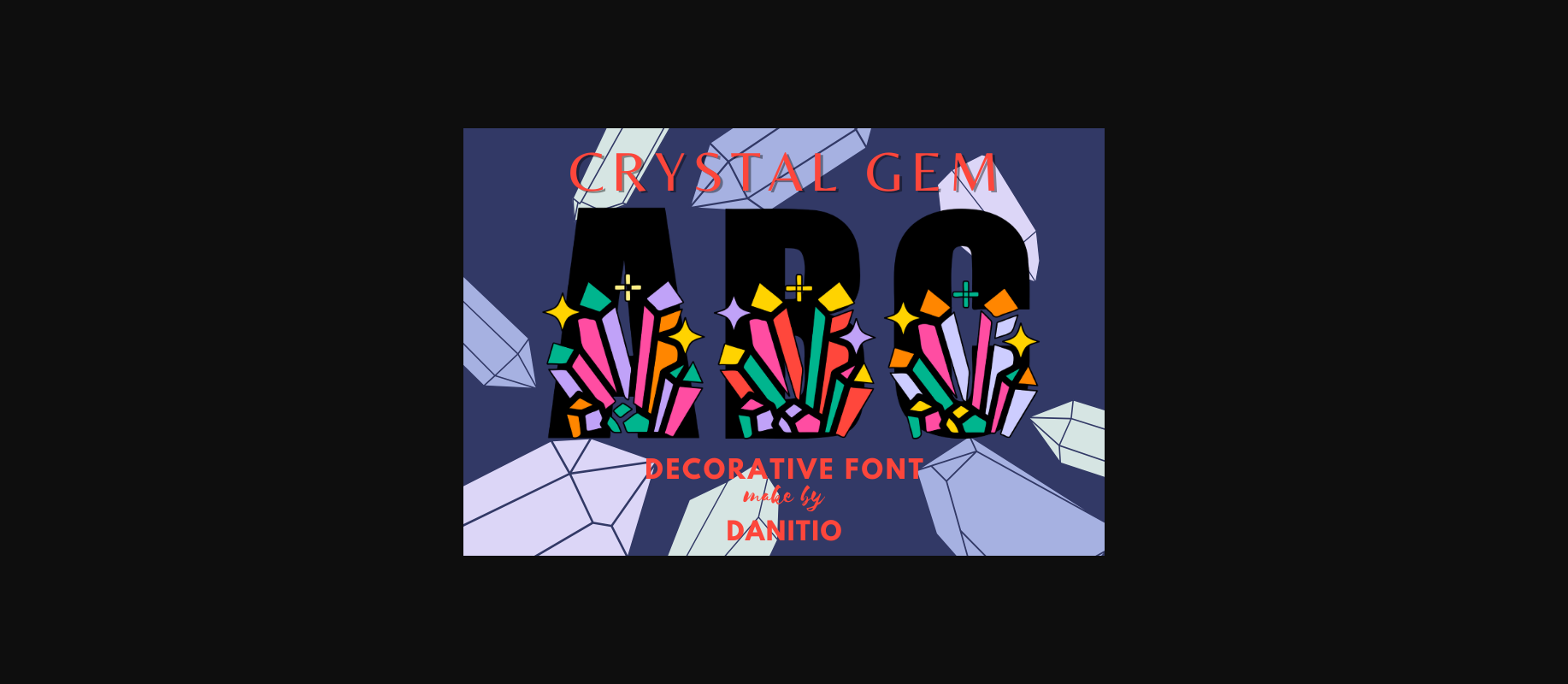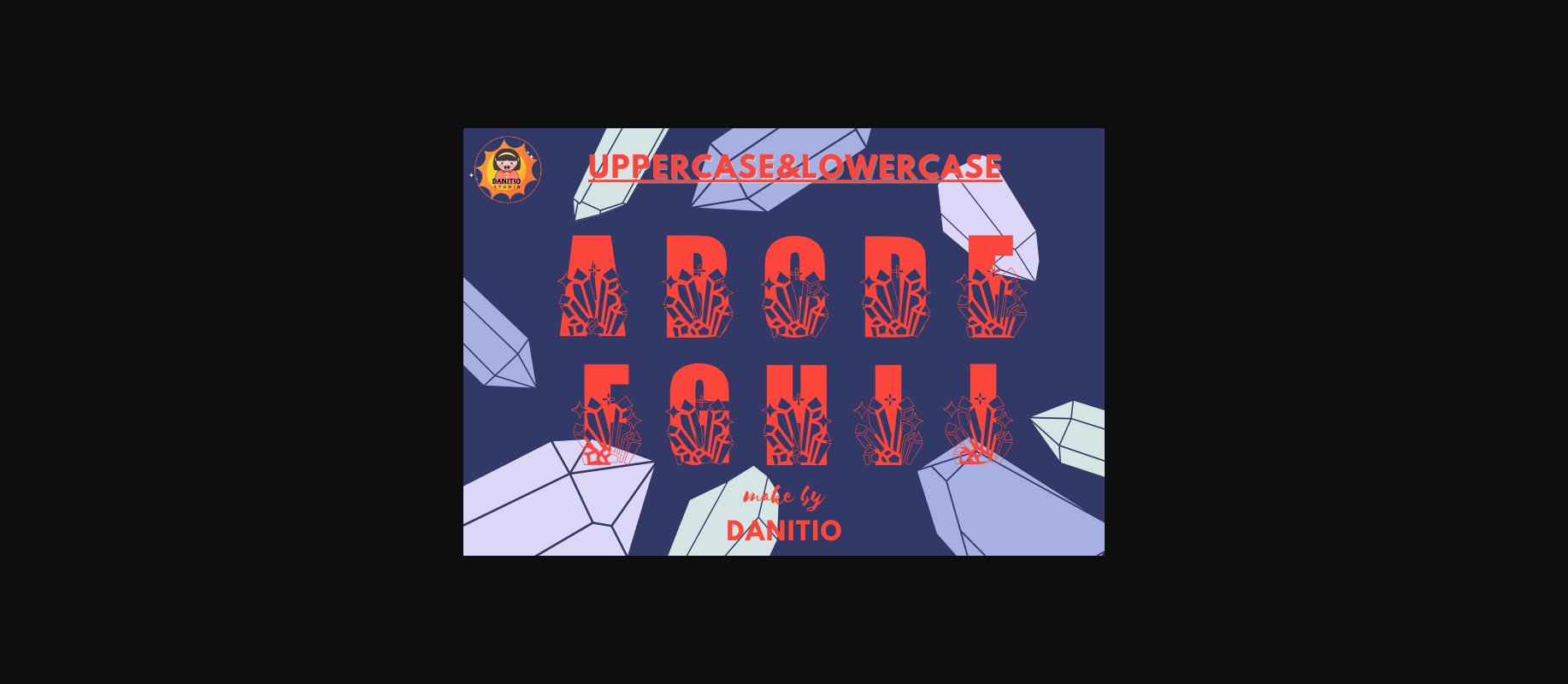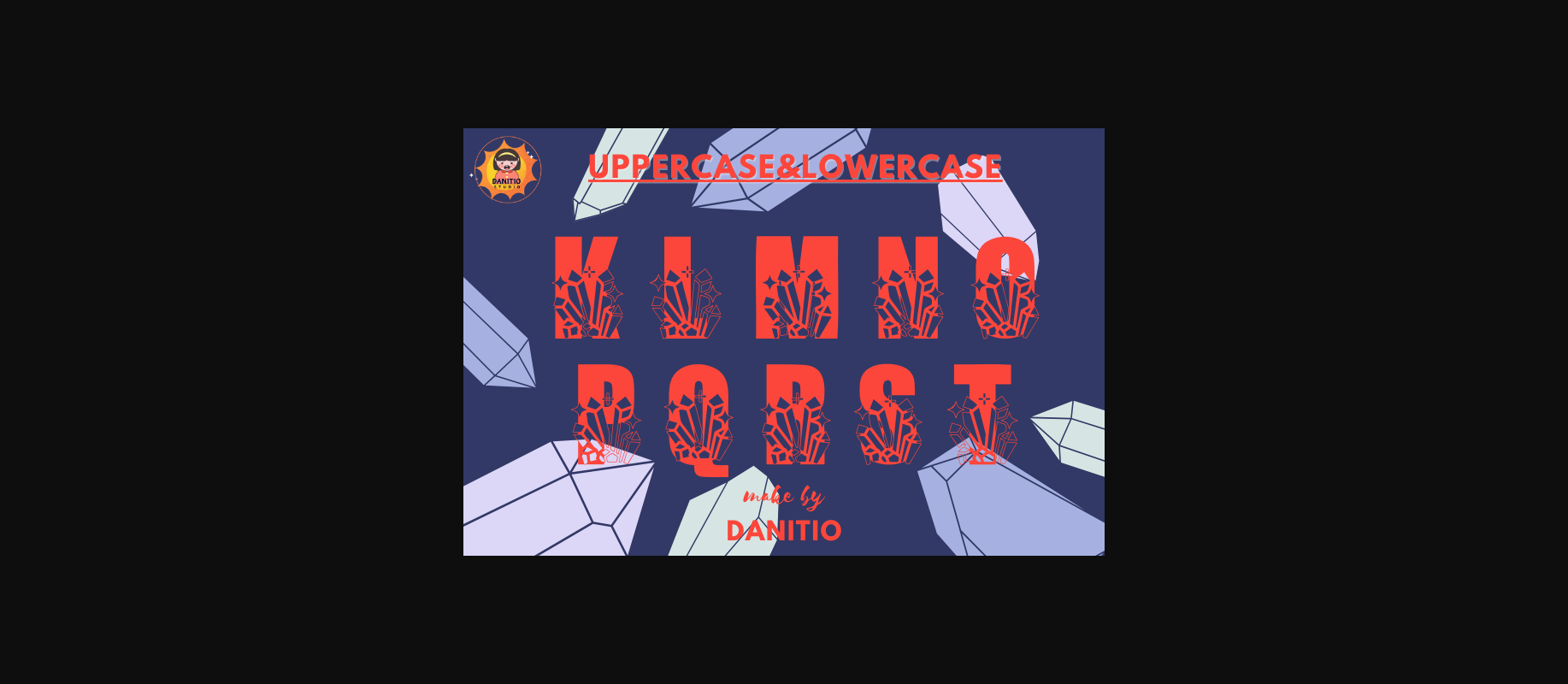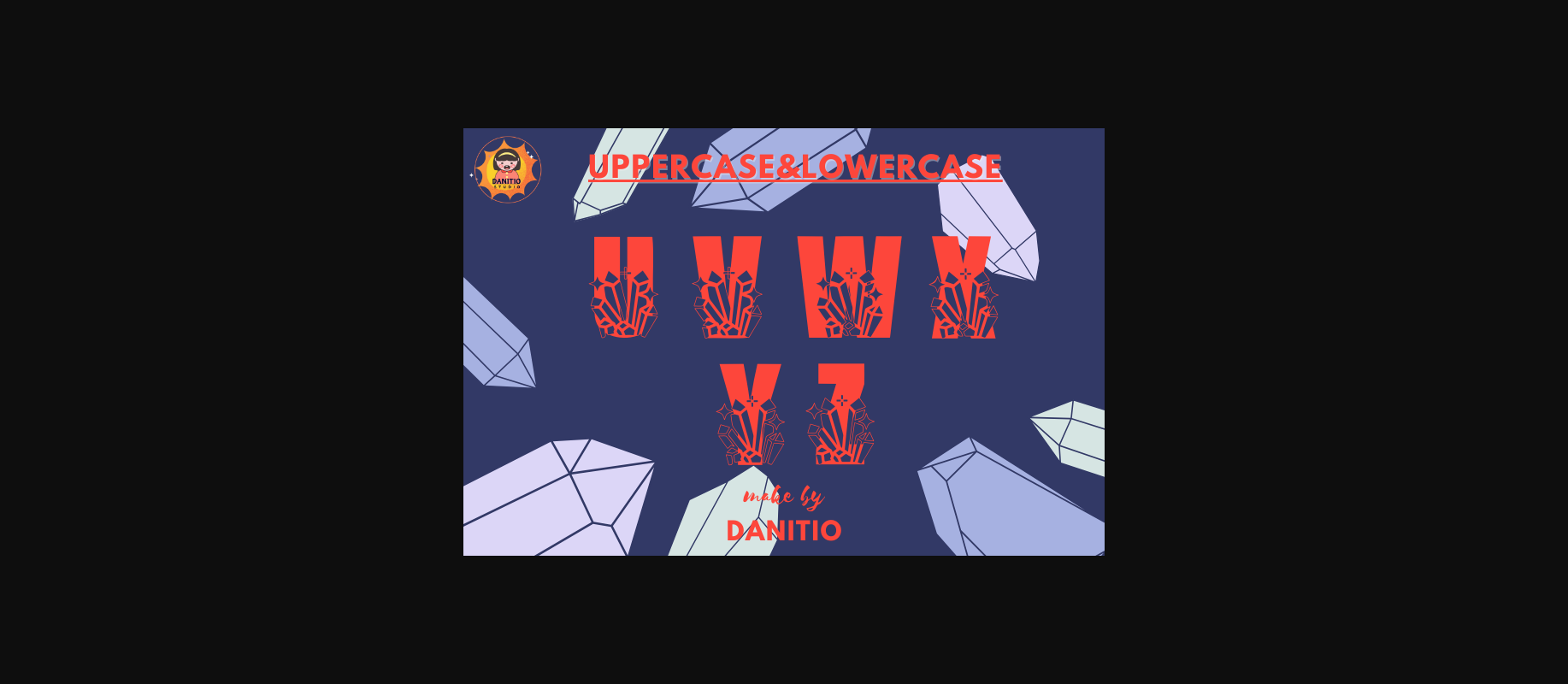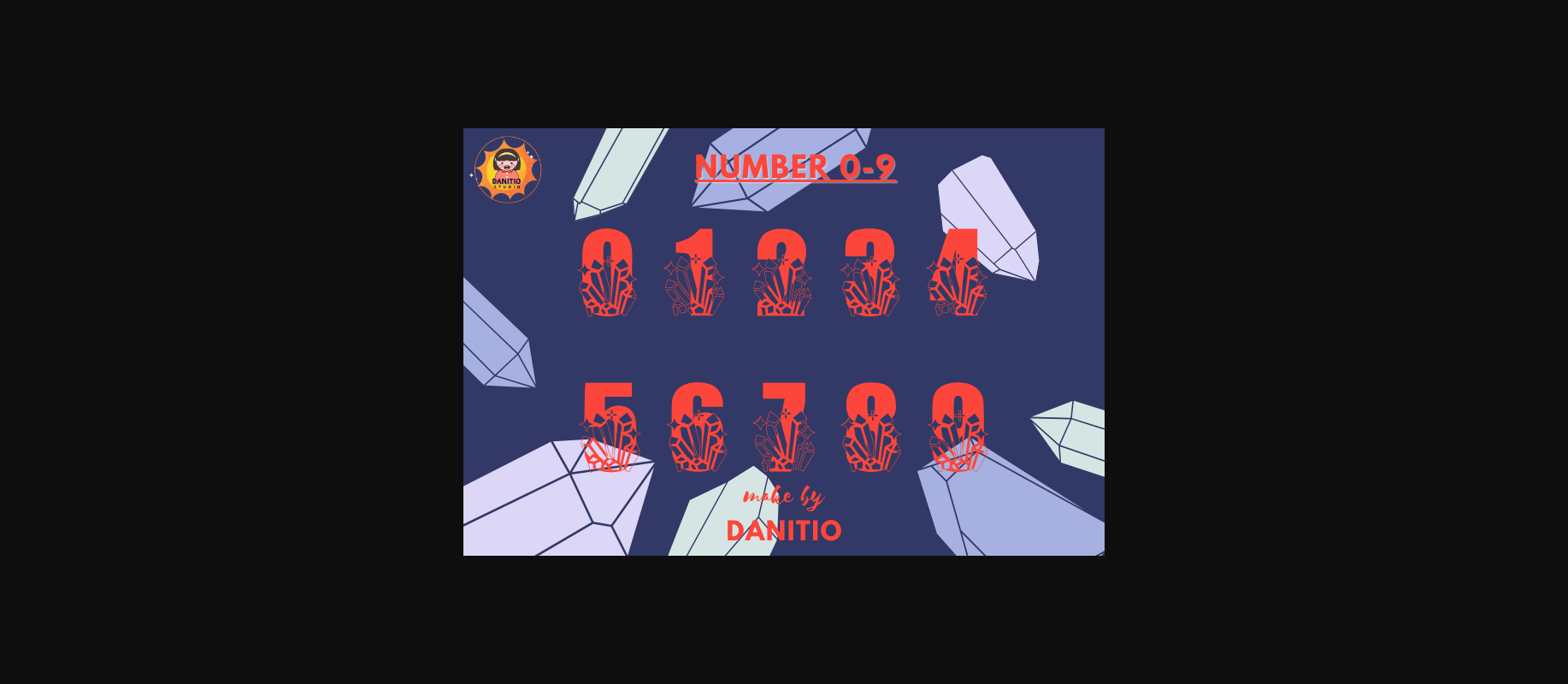
About Crystal Gem Font
Crystal Gem is a luxurious and elegant font. Beautiful and eye-catching, this decorative font is a magical font. Contains letters decorated with dazzling diamonds that shine making it perfect for your favorite projects like posters, flyers, social media posts, beautiful and eye-catching stationery artwork, social media posts, and cute greeting cards. Or use it on products that you think are suitable for this font.